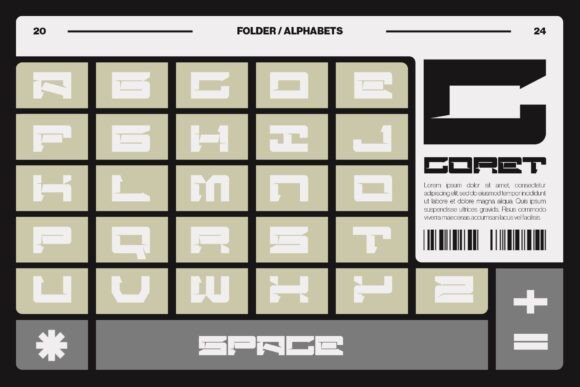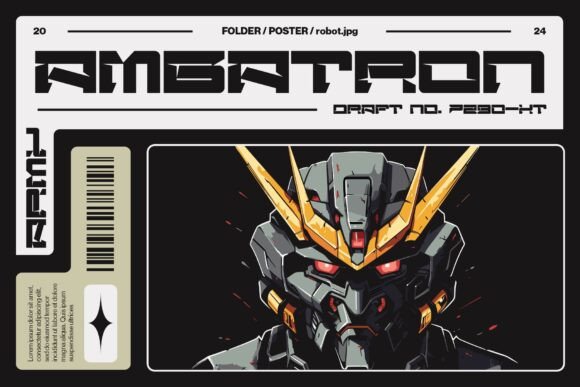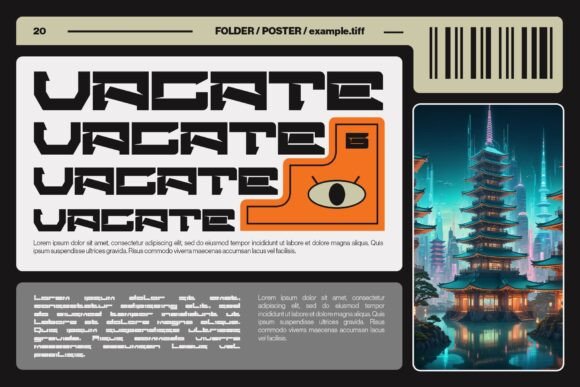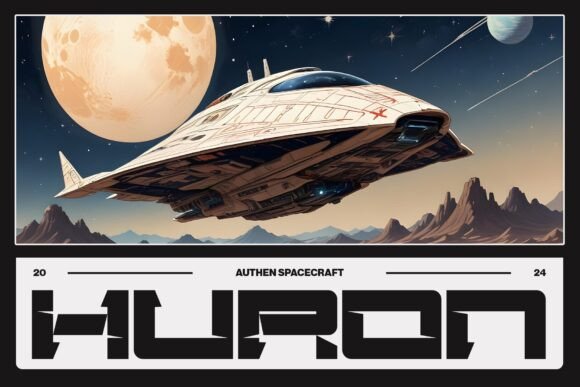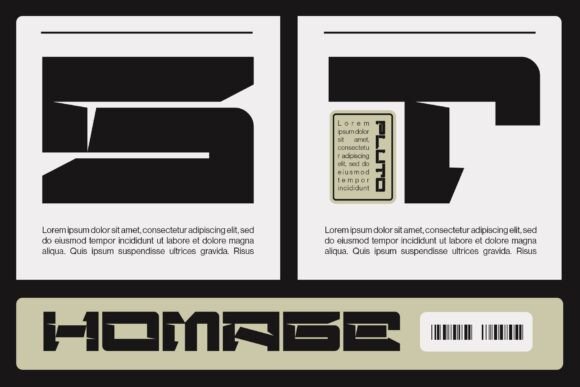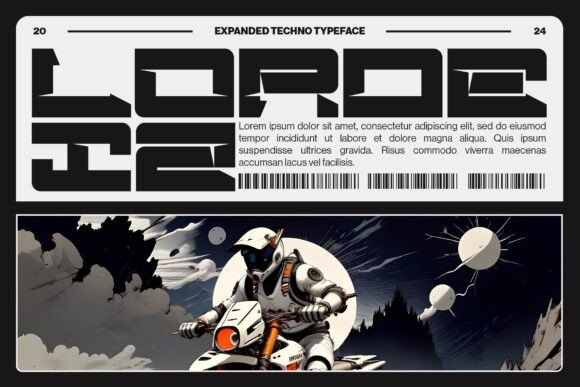
Introducing Coret Font: The Ultimate Techno Typeface for Modern Designs
In the world of digital design, a font can make all the difference in creating a lasting impression. For designers and crafters looking for a bold and futuristic typeface, Coret Font is the perfect solution. Designed by Koplexs Studio, Coret is a cutting-edge display font that combines style, readability, and a unique techno edge, making it ideal for tech branding, gaming logos, sci-fi posters, and modern digital projects.
What is Coret Font?
Coret Font is a futuristic display font characterized by its bold, geometric letterforms and sharp angles. This expanded techno typeface is specifically designed to give your designs a high-tech, innovative edge. With its unique design, Coret ensures that your visuals stand out while maintaining a professional appeal. Whether you’re working on a website, merchandise, or creative campaigns, Coret is the perfect choice.
Key Features of Coret Font
- Bold and Geometric Letterforms: Coret’s letterforms are designed with bold, geometric shapes that give your designs a futuristic and modern look.
- Sharp Angles: The sharp angles in Coret add a touch of edginess, making it perfect for tech branding, gaming logos, and sci-fi posters.
- Expanded Techno Typeface: Coret is an expanded typeface, offering a wide range of characters and symbols to help you create unique and creative designs.
- Style and Readability: Coret combines style and readability, making it perfect for use in websites, merchandise, and creative campaigns.
Who Can Benefit from Coret Font?
Coret Font is perfect for a wide range of designers and crafters, including:
- Graphic Designers: Coret is ideal for graphic designers looking to create bold and futuristic designs for their clients.
- Web Designers: Coret’s unique design and readability make it perfect for use in websites and digital projects.
- Game Developers: Coret’s gaming-inspired design makes it a great choice for game developers looking to create logos, posters, and other promotional materials.
- Crafters and Makers: Coret is also perfect for crafters and makers looking to add a touch of modern style to their DIY projects.
Why Choose Coret Font?
With so many fonts available, why choose Coret? Here are just a few reasons:
- Unique Design: Coret’s unique design ensures that your visuals stand out from the crowd.
- High-Tech Edge: Coret’s futuristic design gives your designs a high-tech edge, perfect for tech branding and modern digital projects.
- Easy to Read: Despite its bold and geometric design, Coret is easy to read, making it perfect for use in websites and other digital projects.
- Versatile: Coret is a versatile font that can be used in a wide range of design projects, from logos and posters to websites and merchandise.
- Logos and Branding: Use Coret to create bold and futuristic logos for your clients or business.
- Websites: Use Coret to add a touch of modern style to your website or blog.
- Merchandise: Use Coret to create eye-catching merchandise, such as t-shirts, stickers, and posters.
- Creative Campaigns: Use Coret to add a touch of innovation and style to your creative campaigns.
In conclusion, Coret Font is a cutting-edge display font that is perfect for designers and crafters looking to add a touch of modern style to their designs. With its bold, geometric letterforms, sharp angles, and expanded techno design, Coret is ideal for tech branding, gaming logos, sci-fi posters, and modern digital projects. Download Coret today and elevate your designs with a high-tech, innovative edge!